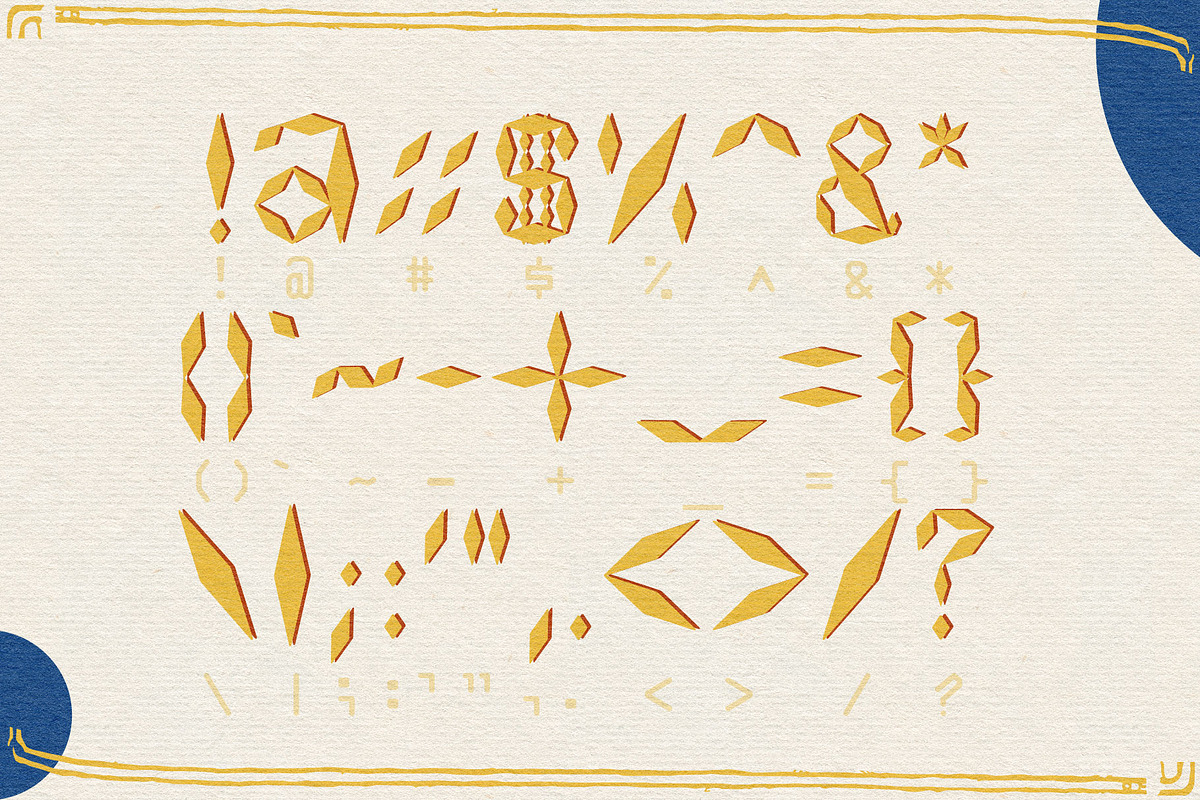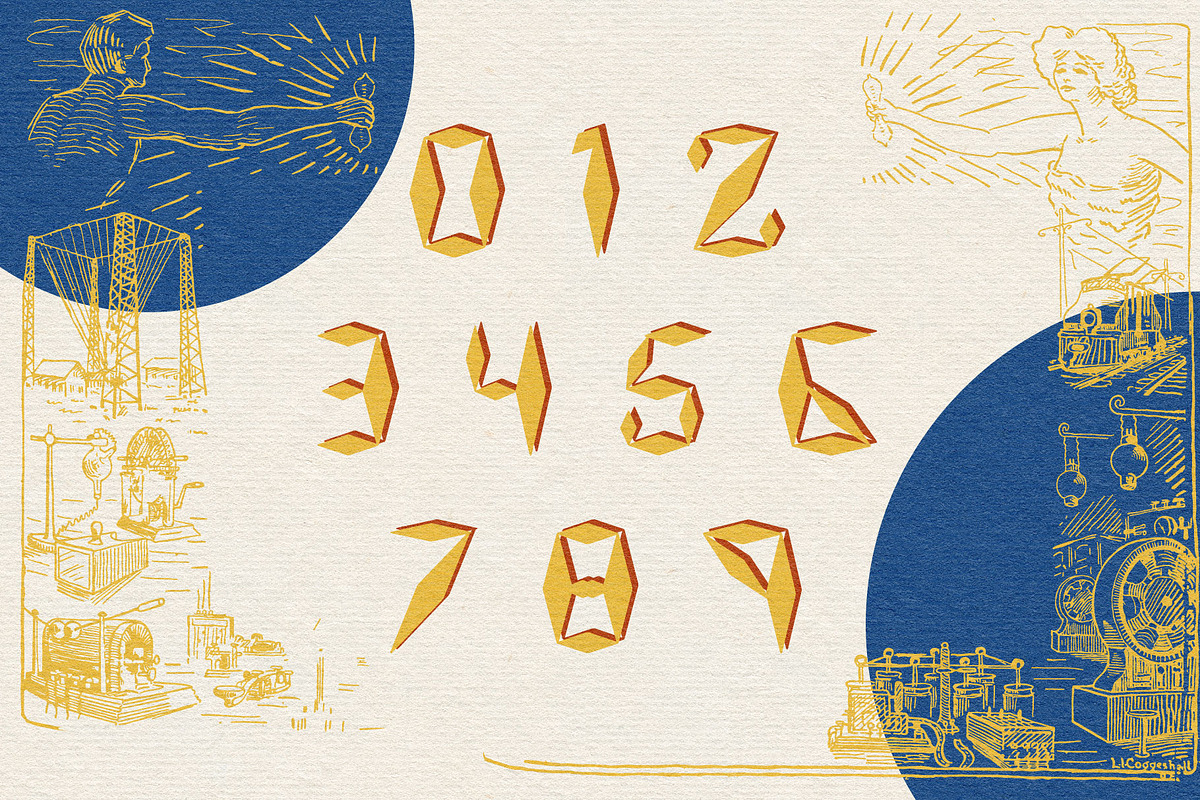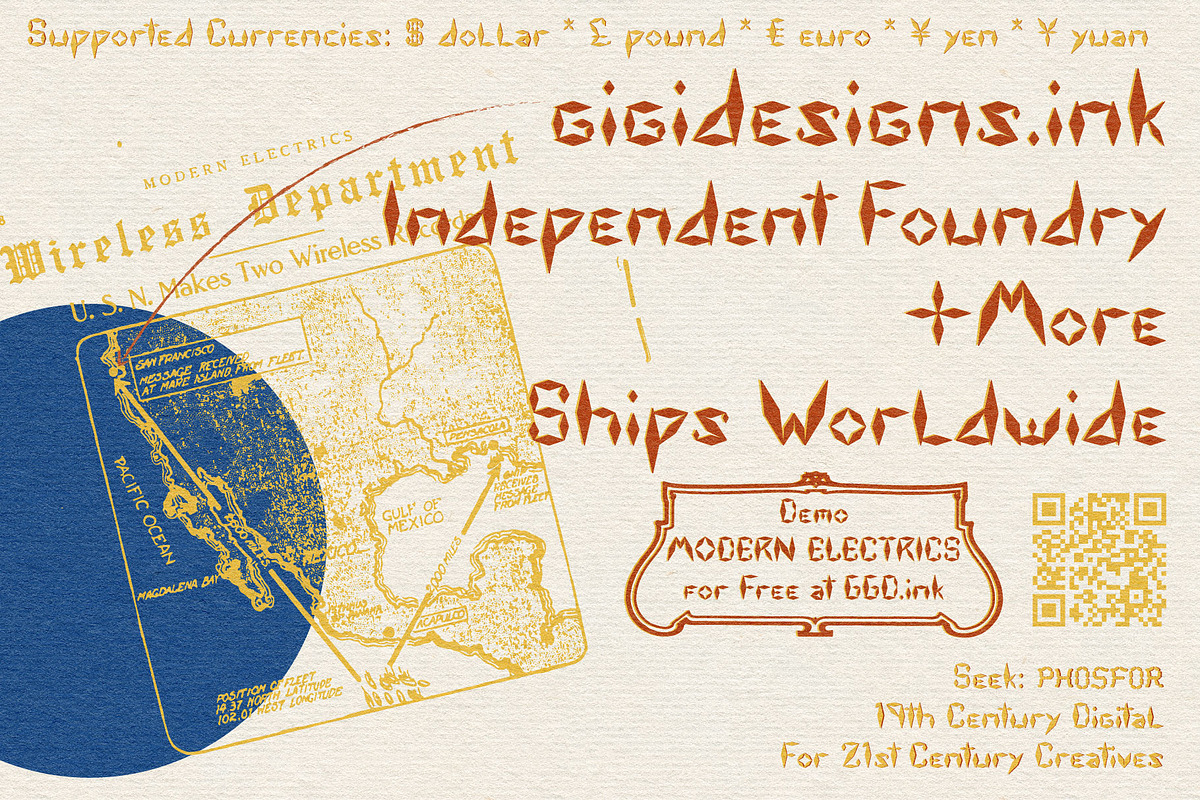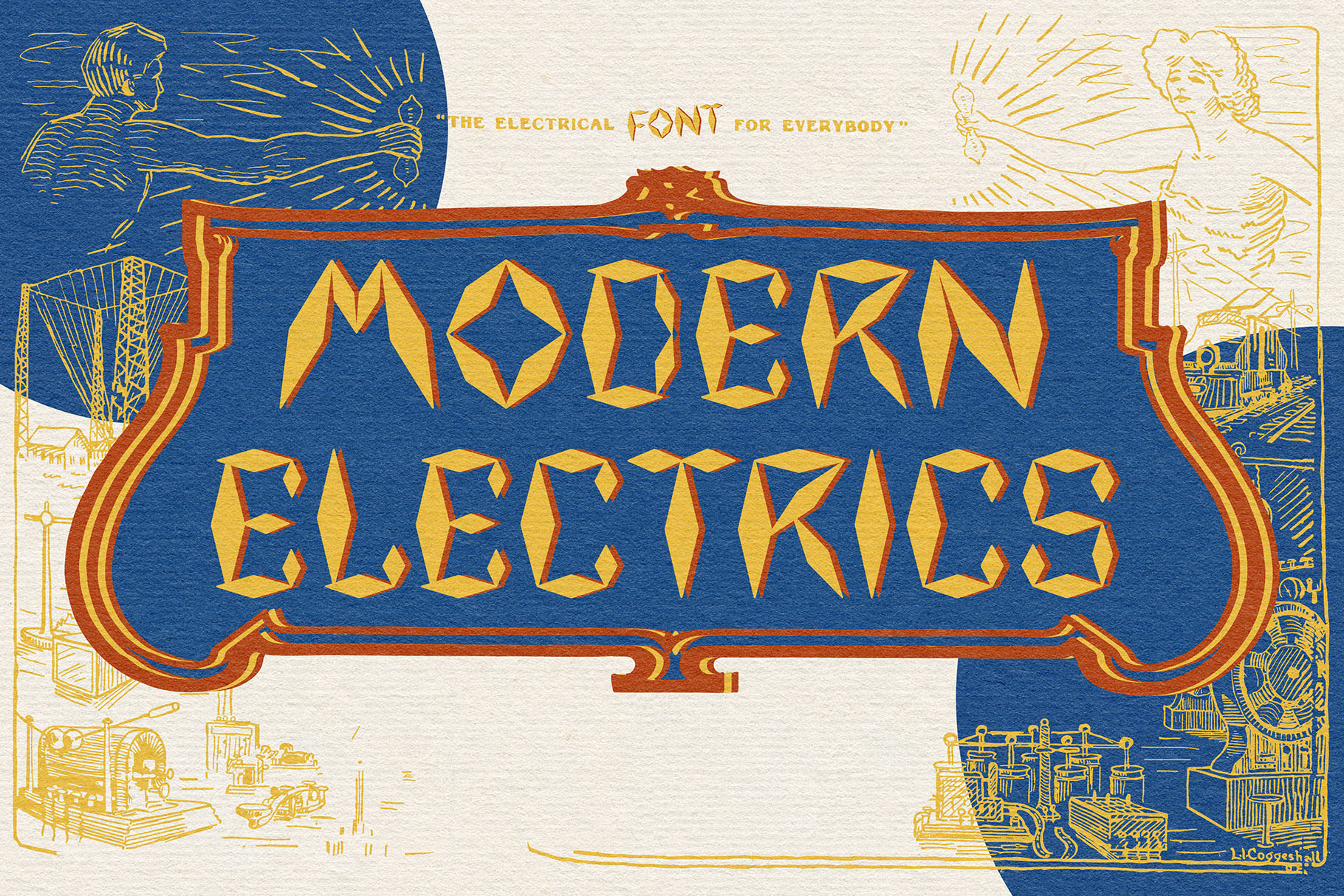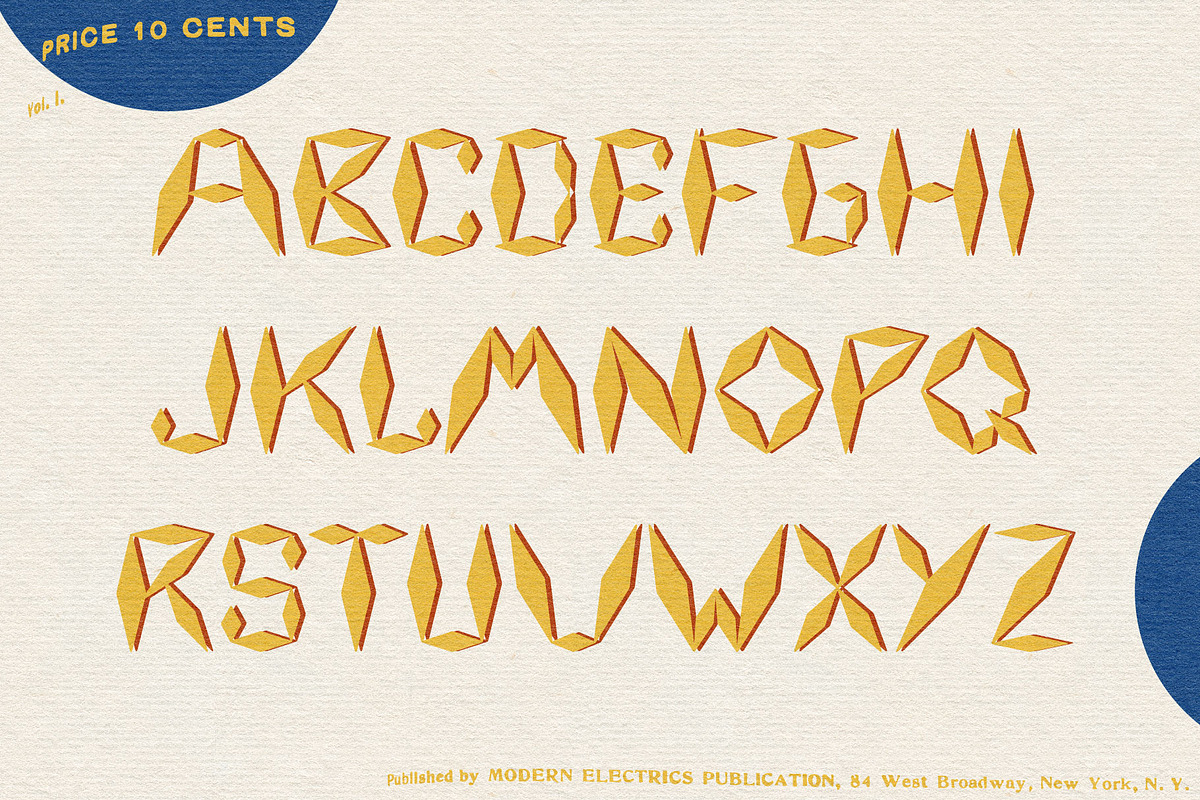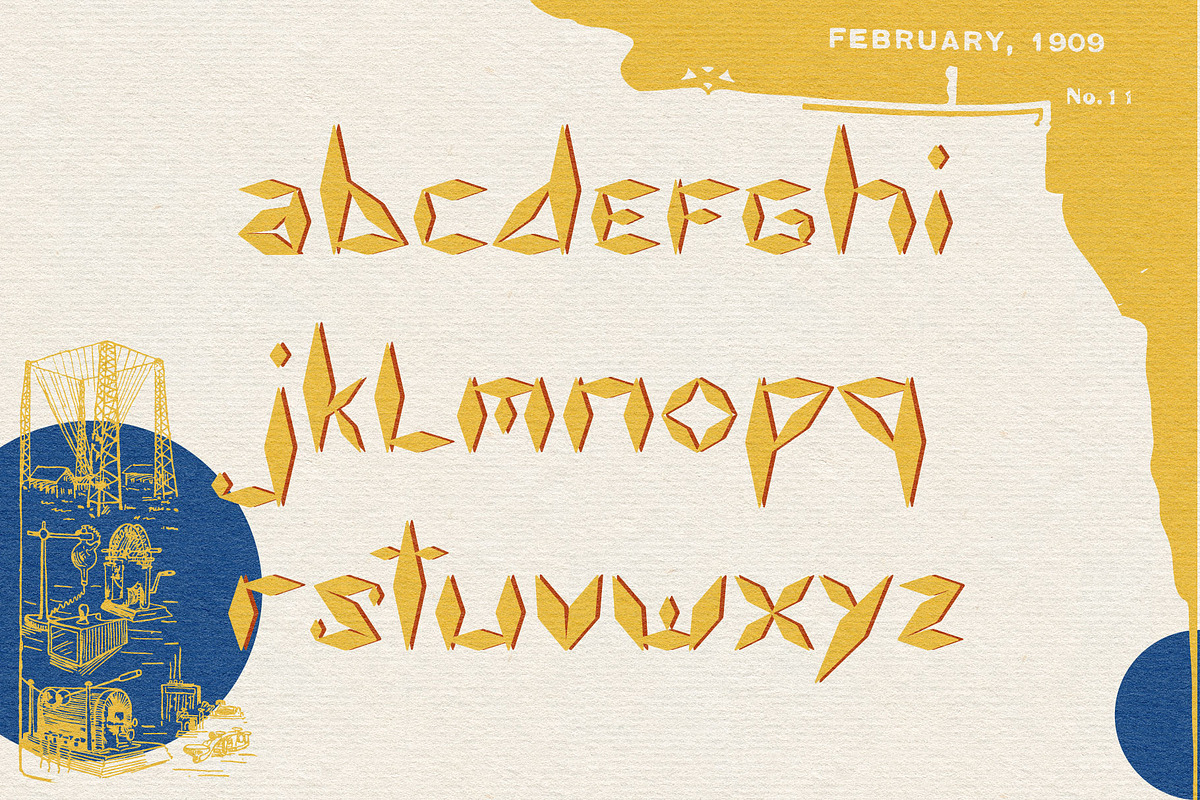
Modern Electrics OTF Font Revival
MODERN ELECTRICS, the second resurrected typeface by GiGiDesigns, is a monument to the dazzling early electric age. An era of inquirers delighted in sharing homespun experiments to a diaspora of like-minded enthusiasts. It’s at home doodled in the margins of the first electrical magazine for everyone- whose name it shares, & the source of its original 11 letterforms.
It wears an Marconi Has A Posse tee and yearns to be scribbled in ballpoint blue. It was soldered into the desk which launched Amazing Stories. When it hands you a blindfold, you spin around 3x and put a finger down on a map. Kit up. Adventuring begins at dawn.
A few suggested use cases:
Retro Futurist Fodder
- Electrician logos with personality—especially old-school independents or DIY startups who want a “wired vintage” identity.
- Power company memorabilia or rebrands, particularly for exhibits, museums, or steampunk revivalist crews.
- Utility packaging design (think: fuses, wire coils, resistor boxes) for aesthetic recreations or themed props.
Designers & Writers Who Hack Time
- Lettering for fictional tech blueprints, schematic posters, or speculative history artifacts.
- Display font for historical podcasts about invention, design, or futurism.
- Chapter headers for sci-fi comics that fuse past and future.
Educators, Historians, and Makers
- Posters or displays for science museums, especially about electricity, radio, or Gernsback-era innovation.
- School projects needing a font that looks like it was drawn in the margins of Nikola Tesla's sketchbook.
- TTRPG character sheets for inventors, artificers, or crackling electric cults.
Artists & Experimentalists
- Tattoo designs for engineers, writers, or hobbyists who grew up with Popular Mechanics or vintage radios.
- Limited edition prints celebrating the Age of Invention, real or imagined.
- Experimental UI overlays in video installations or alt-reality exhibits.
- Stencil projects! These letterforms are well suited for vinyl and laser cutters.
Sci-Fi Revivalists & Pulp Obsessives
- New pulp magazine mastheads or small press covers in the tradition of Amazing Stories and Astounding Tales.
- Poster headers for indie sci-fi films, time travel shorts, or dieselpunk web series.
- Zine titles for anything speculative, exploratory, or tech-ritualistic.